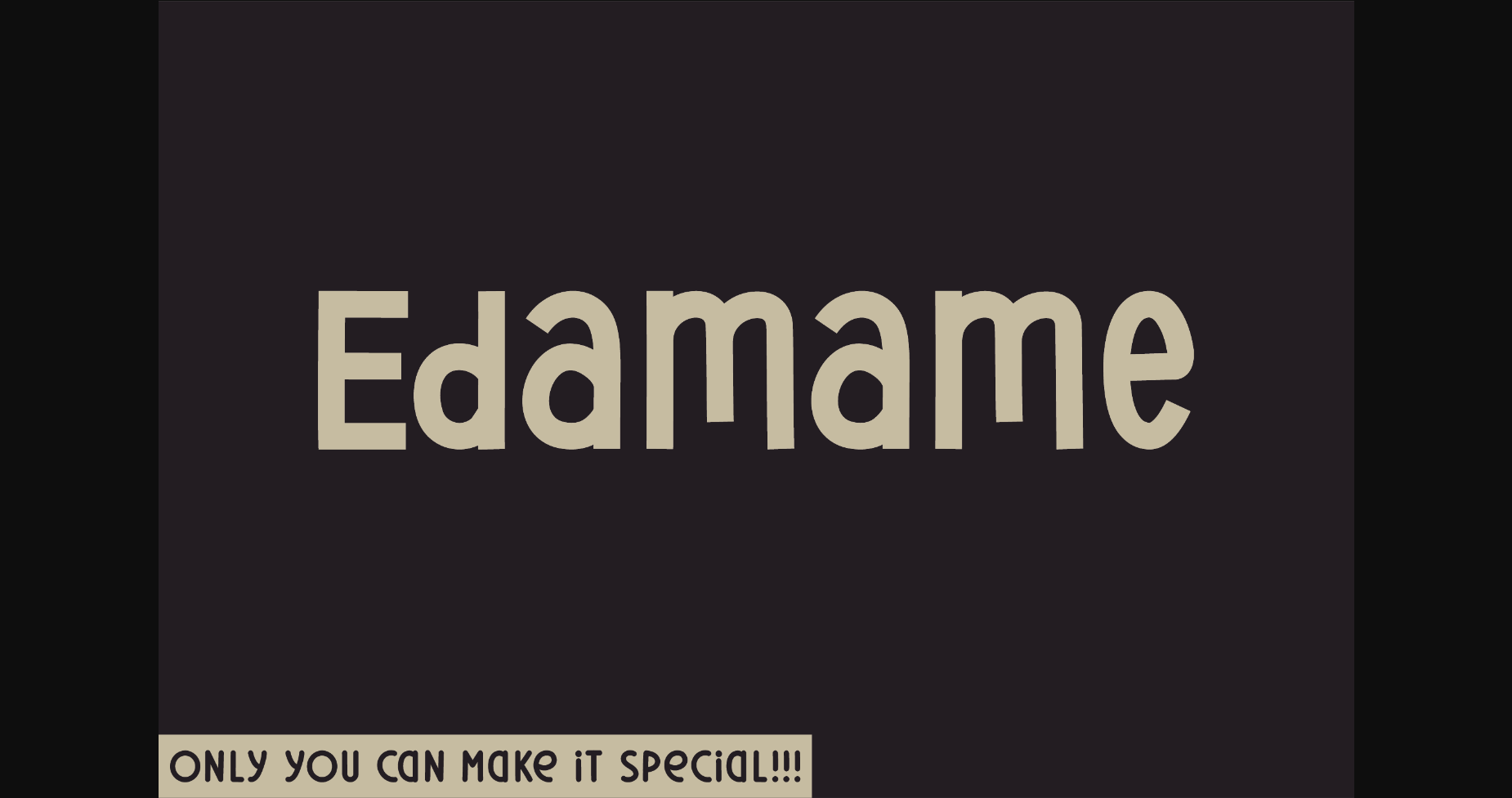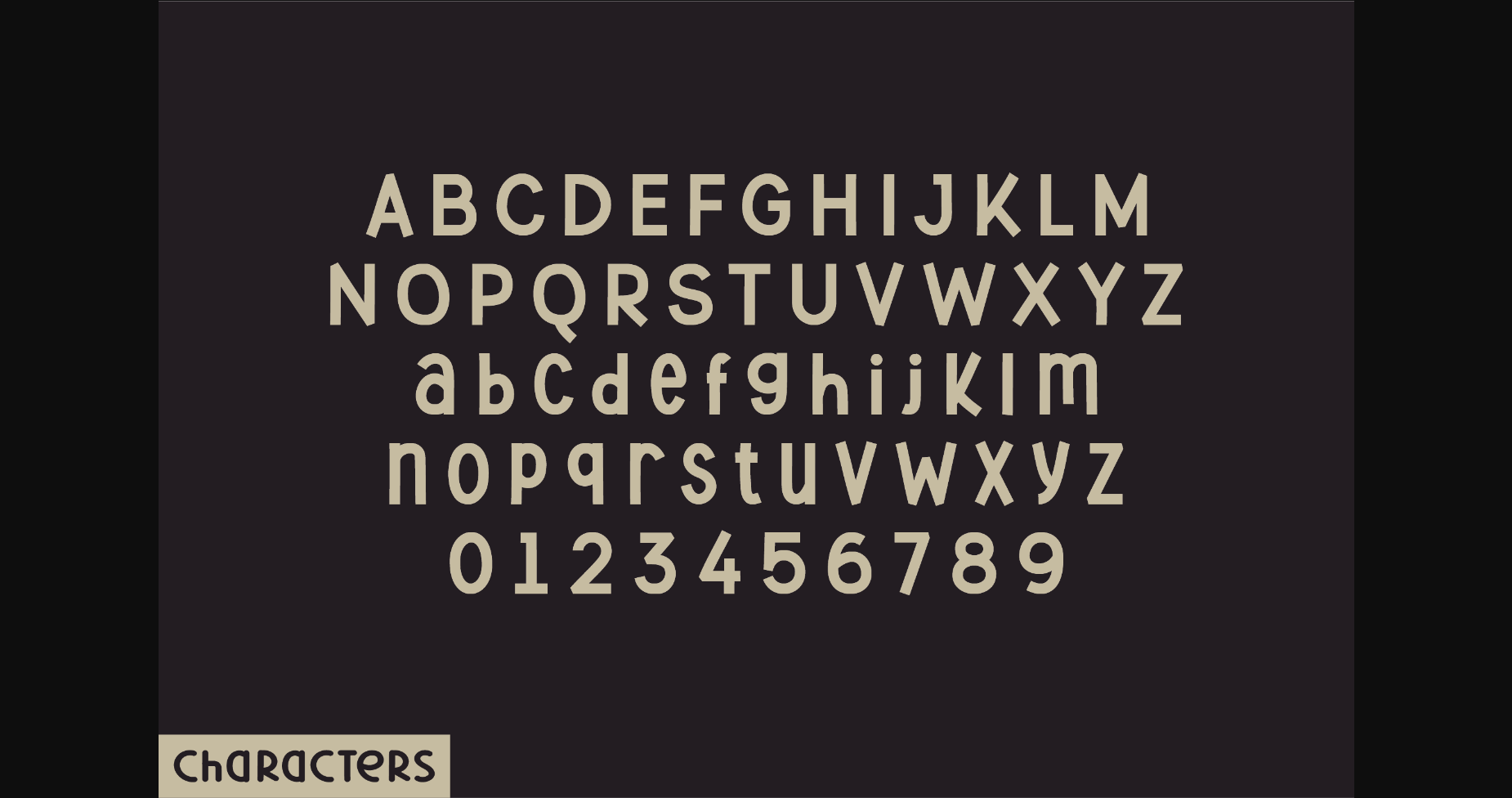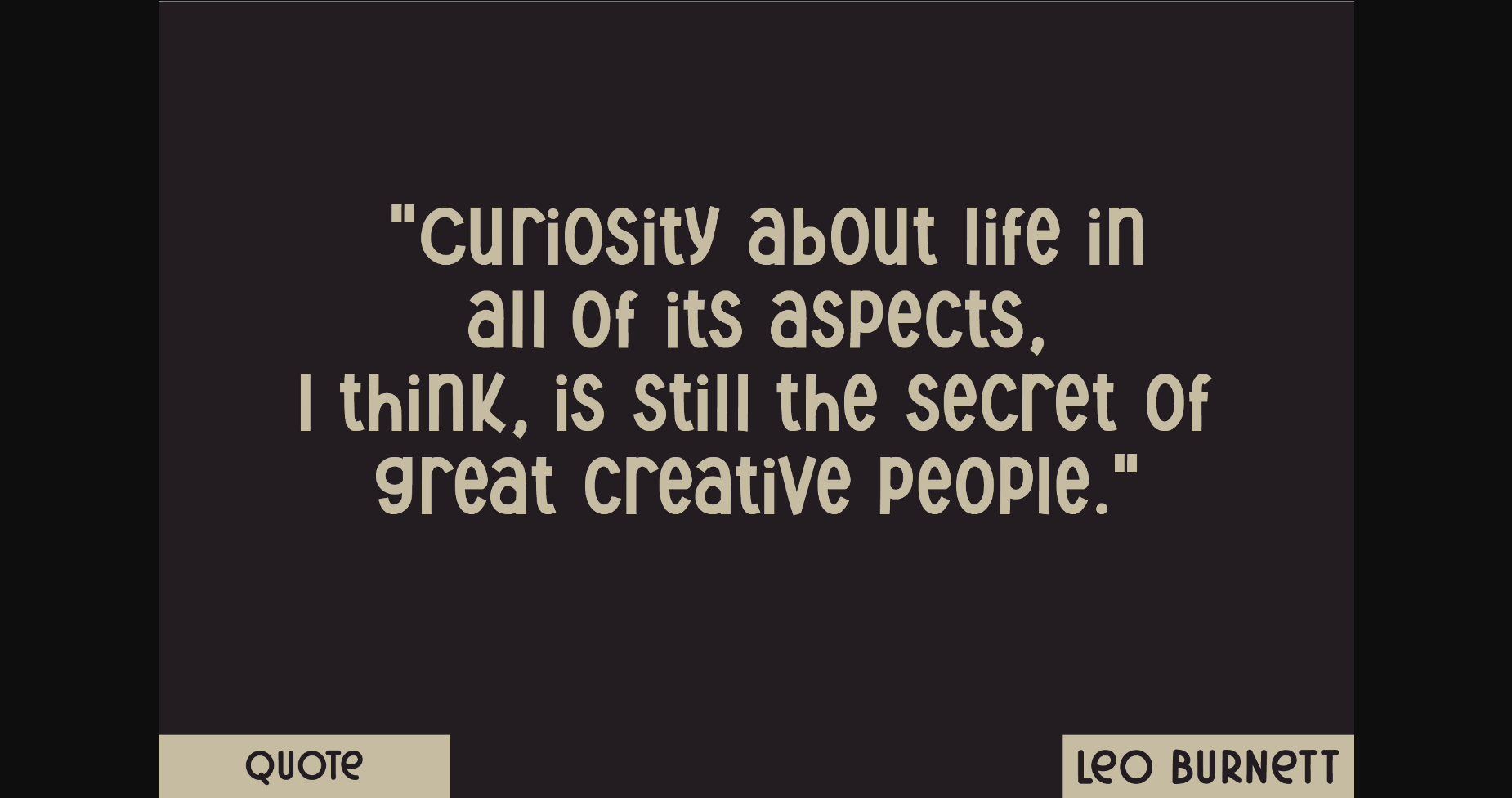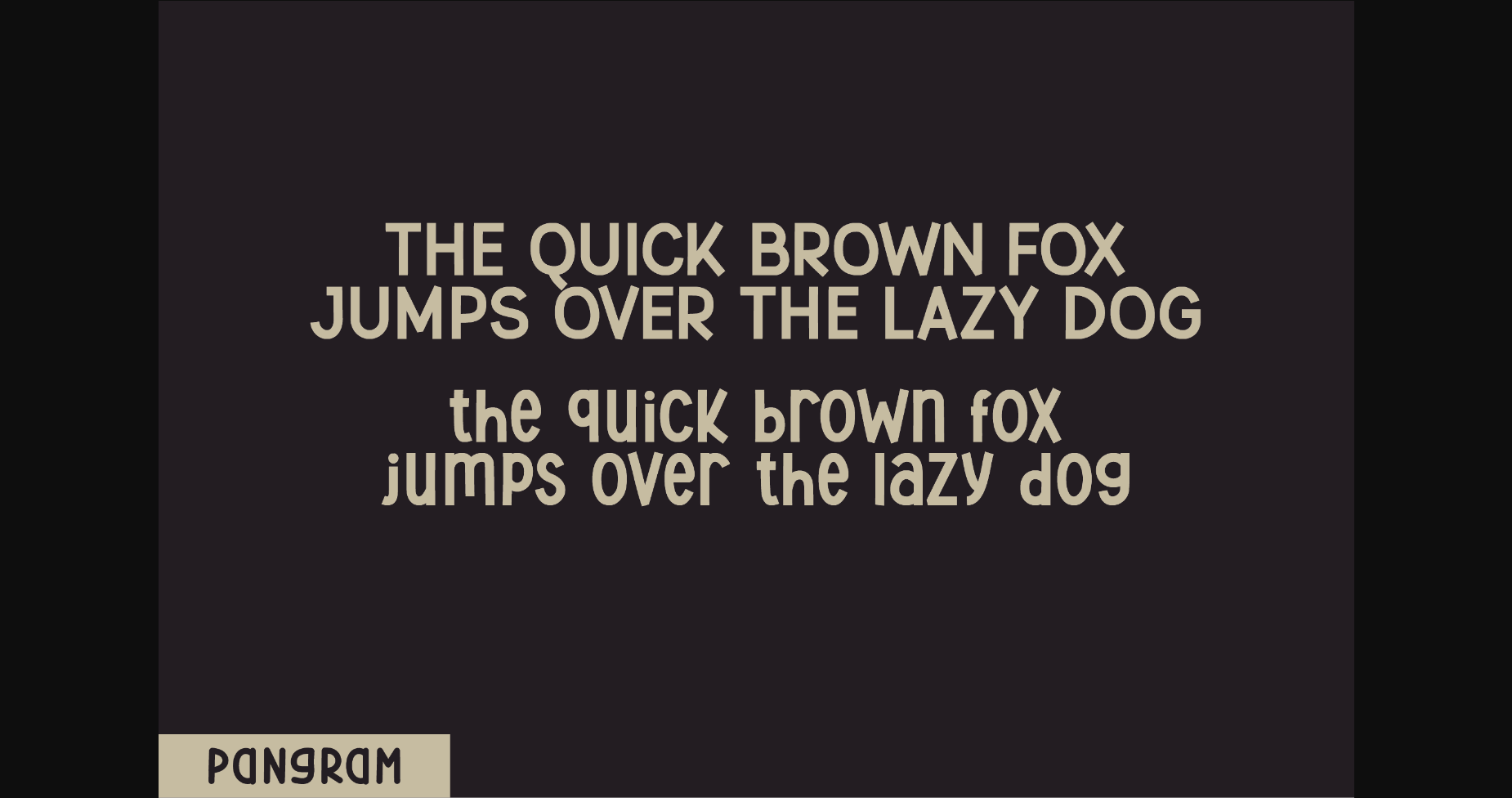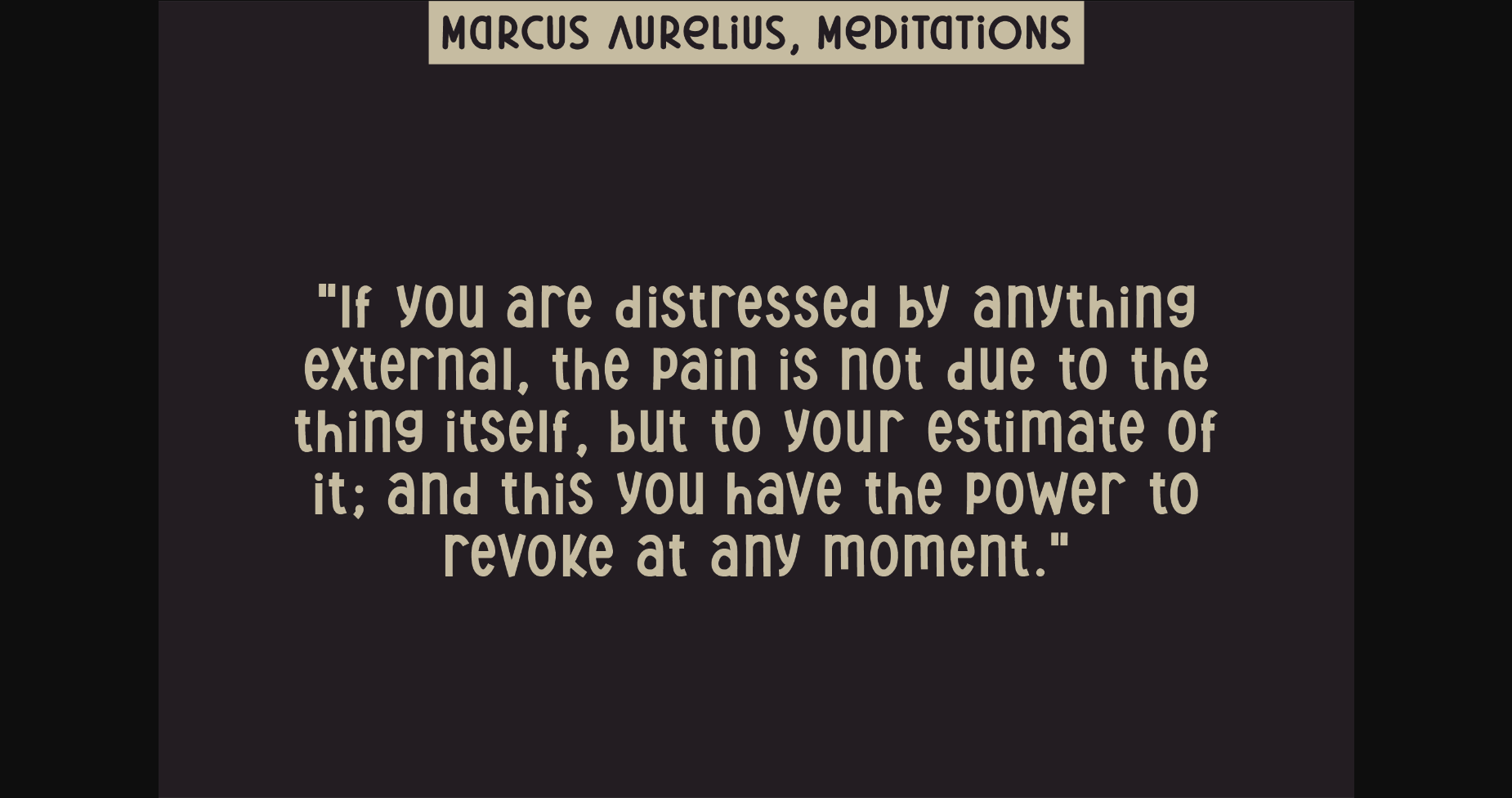
Sans Serif Fonts Edamame Font 0 282 FacebookTwitterPinterestWhatsApp 1 of 7 ... Edamame Font Poster 2... Edamame Font Poster 3... Edamame Font Poster 4... Edamame Font Poster 5... Edamame Font Poster 6... Edamame Font Poster 7... About Edamame Font Edamame is a natural sans serif font created without changing a single node in each character’s indentation – this makes this font very interesting and unique. Perfect for quotes, notes, tees, and any product design. DOWNLOAD NOW